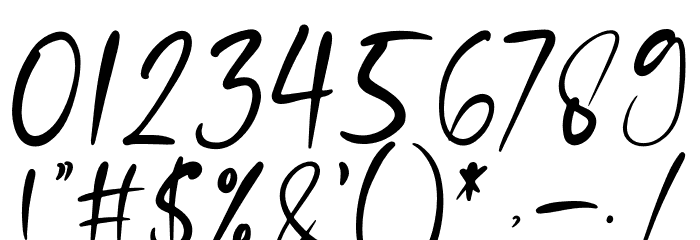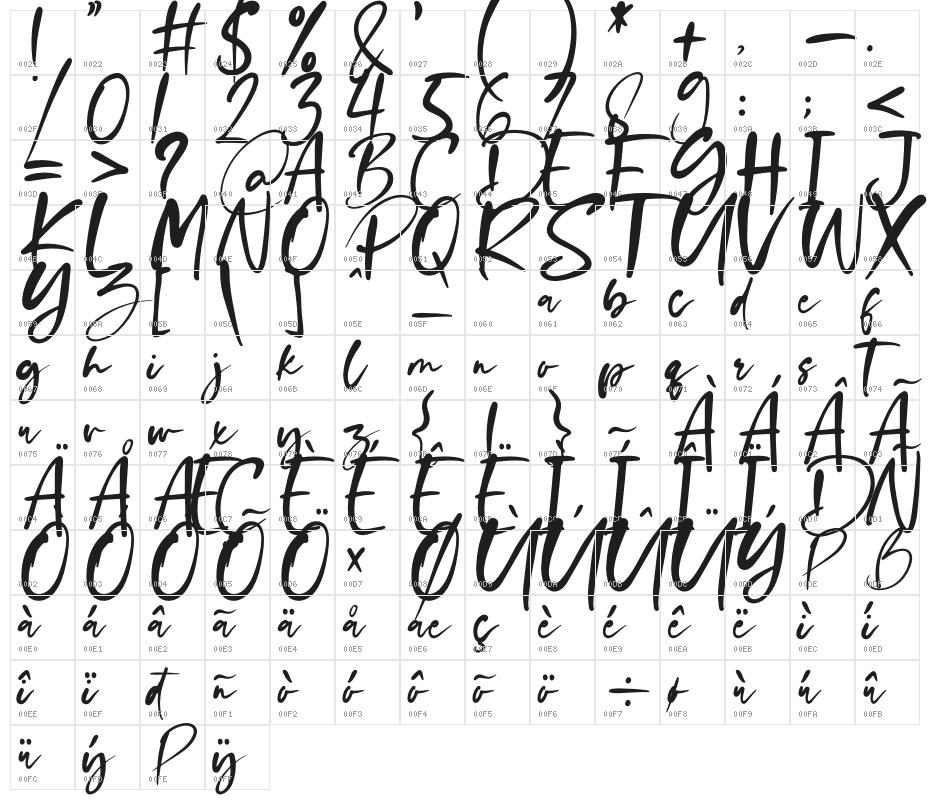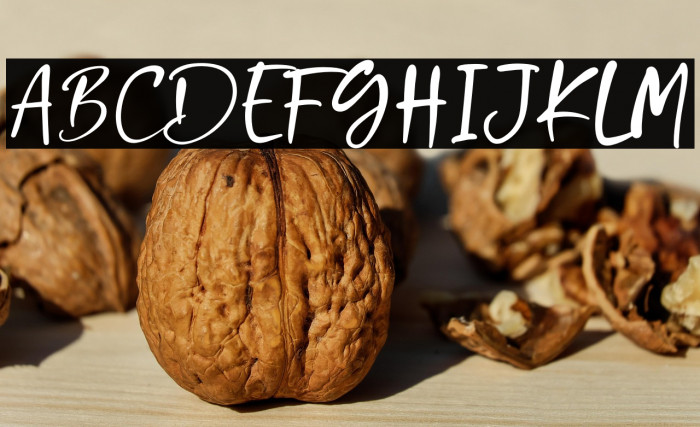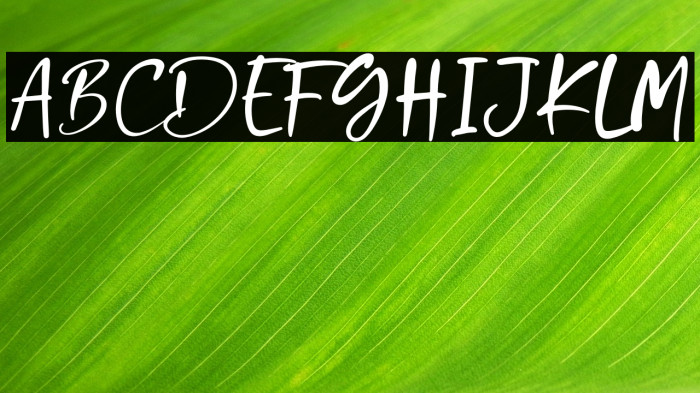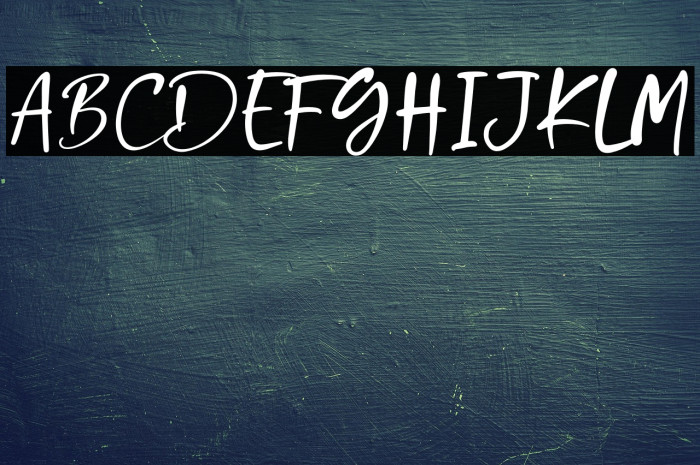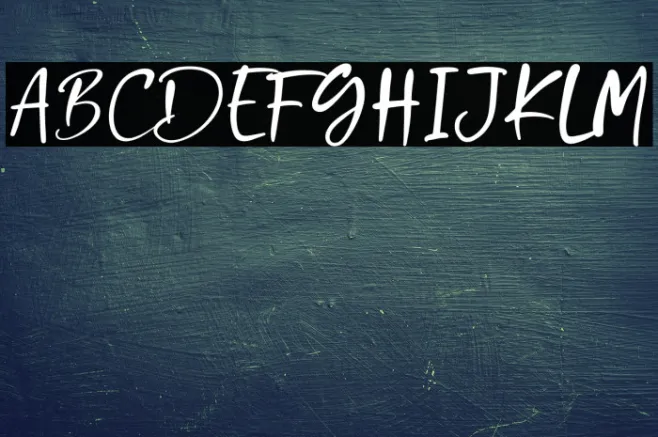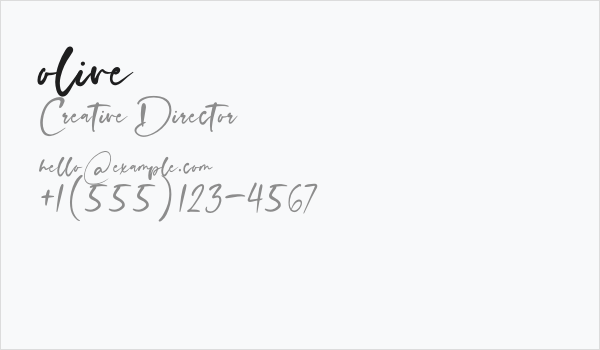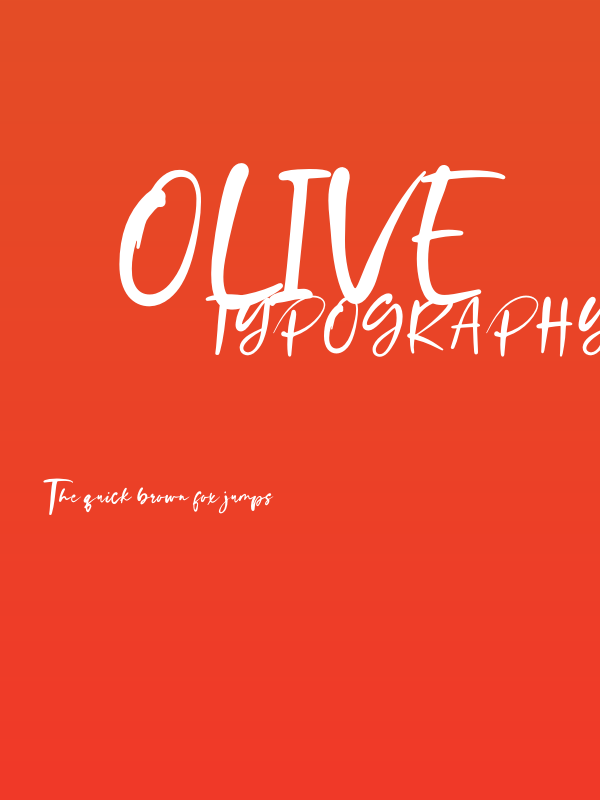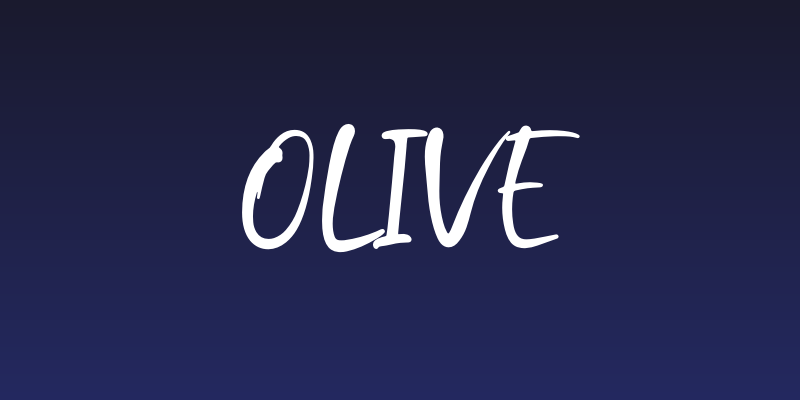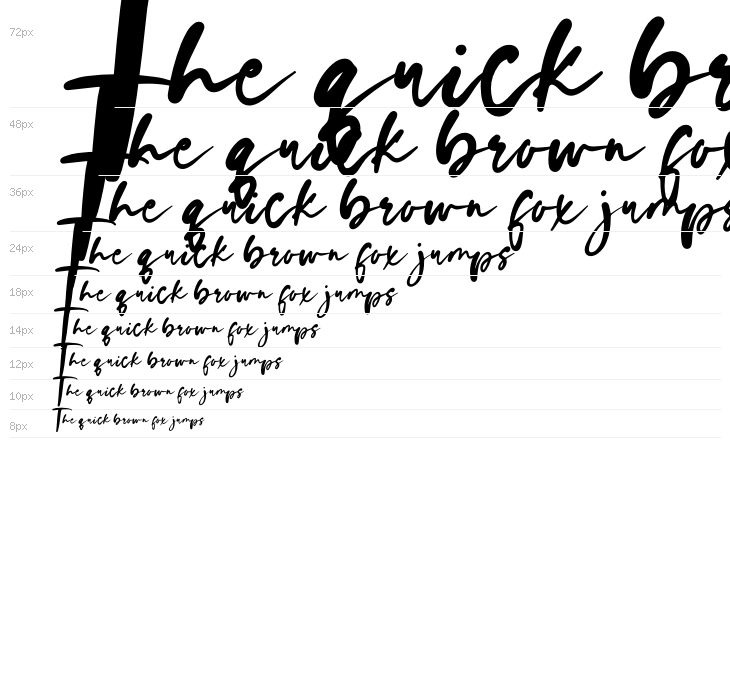
olive Font
olive Description
This font exhibits a lively and expressive handwritten style, characterized by its fluid and dynamic strokes. The uppercase letters are bold and slightly slanted, giving a sense of movement and energy. The lowercase letters maintain a consistent flow, with some characters featuring unique loops and curves that add personality. The numbers are clear and legible, matching the overall style with their playful yet structured appearance. Special characters are well-integrated, maintaining the font's cohesive aesthetic. This font's design is both modern and artistic, making it suitable for creative projects.
| Proposed Projects | Ideal for creative projects such as greeting cards, invitations, branding, and social media graphics. |